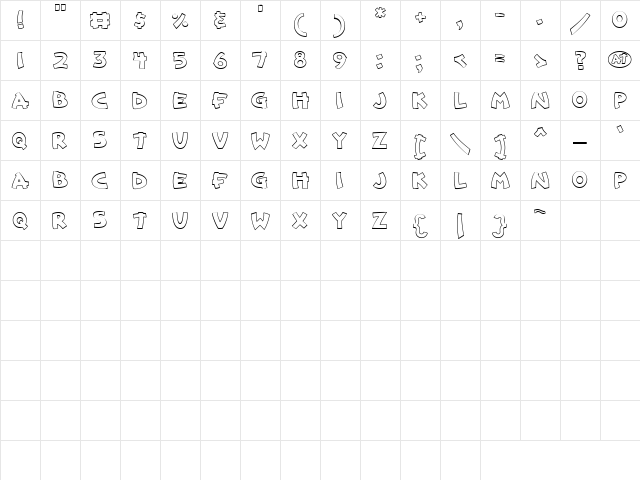
Doodle Caps Block Regular
Design Context for Doodle Caps Block Typeface
Doodle Caps Block is a composed and adaptable typeface that performs quietly and consistently across a wide range of design contexts.